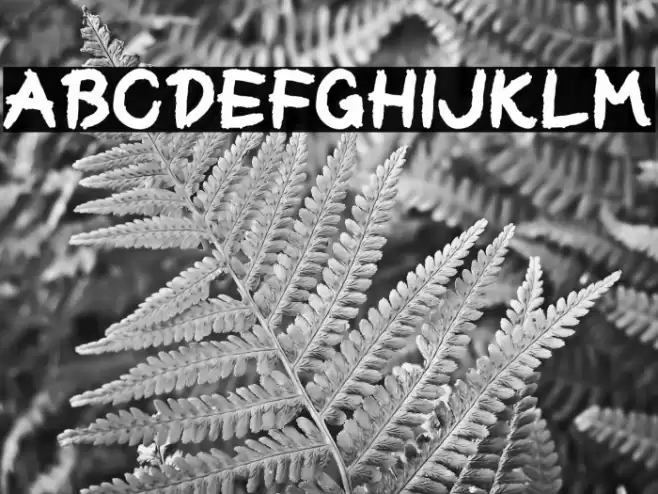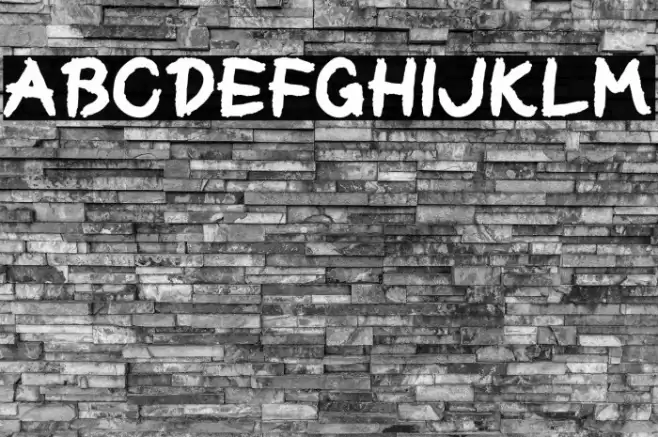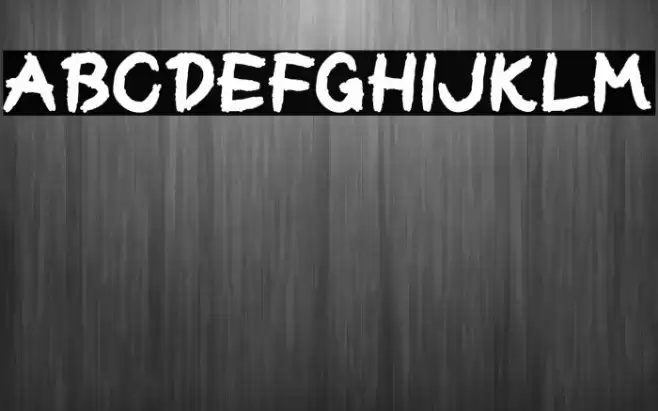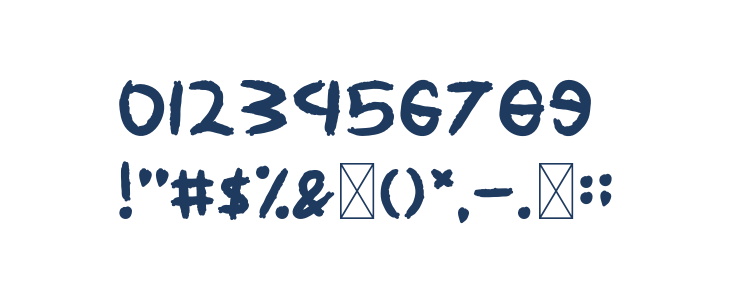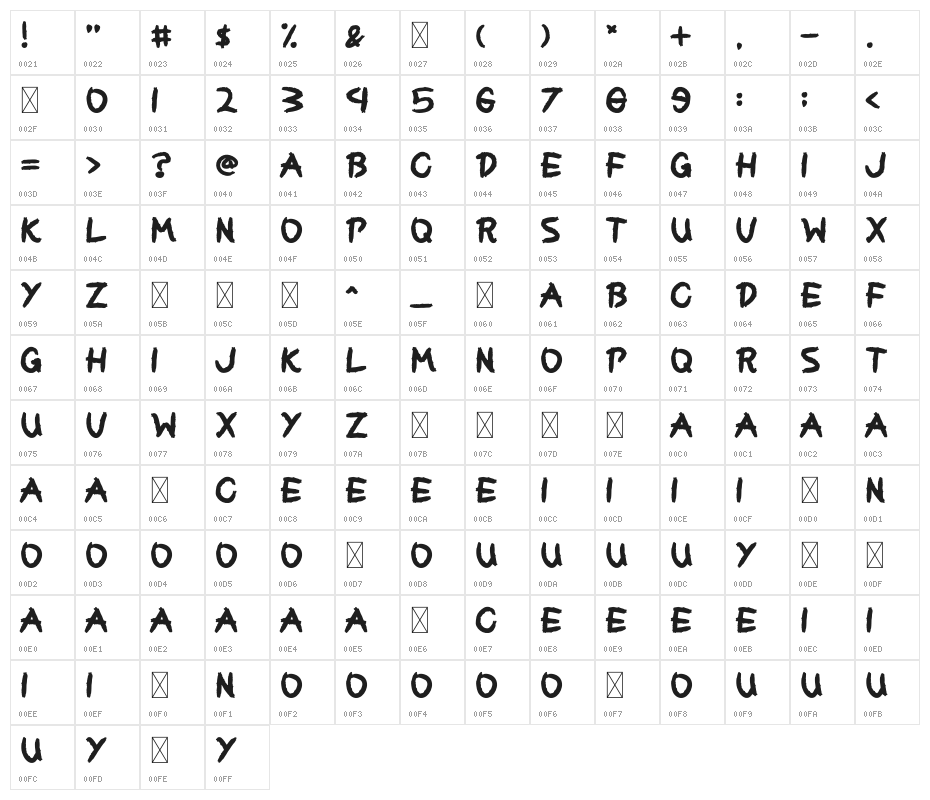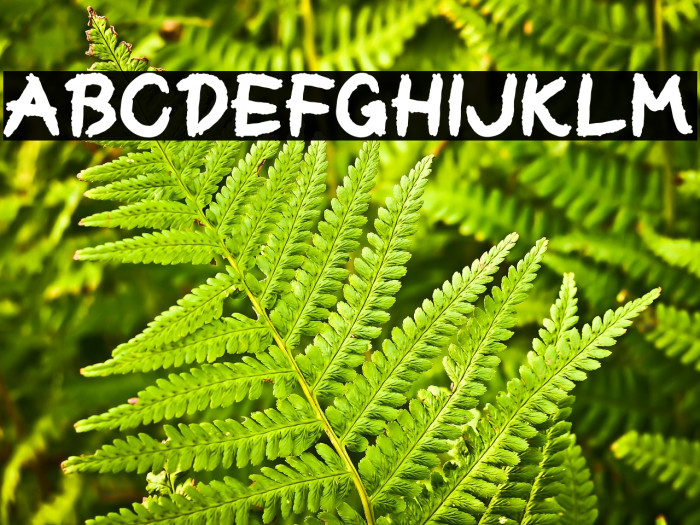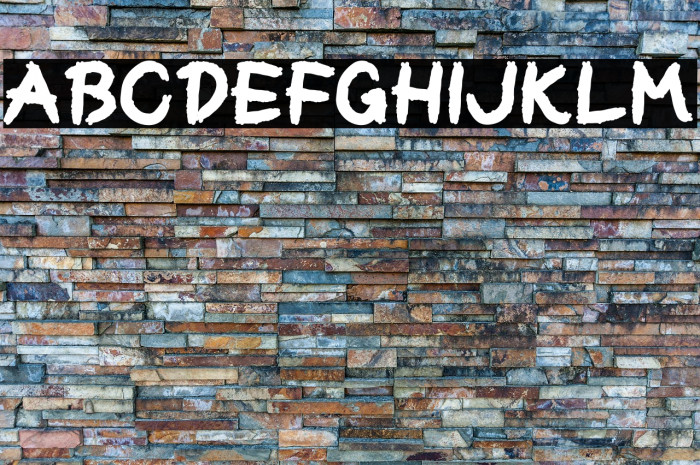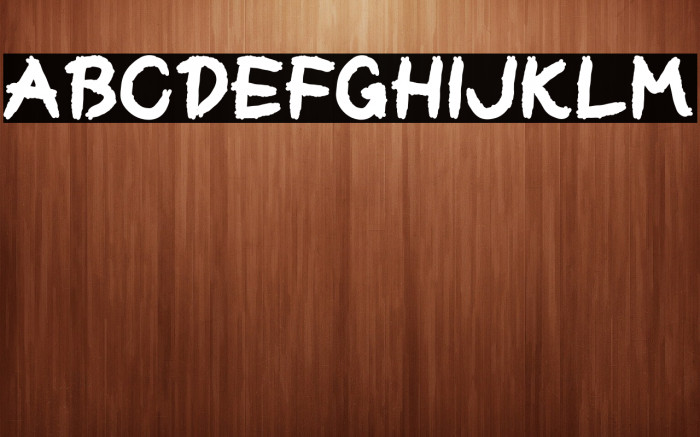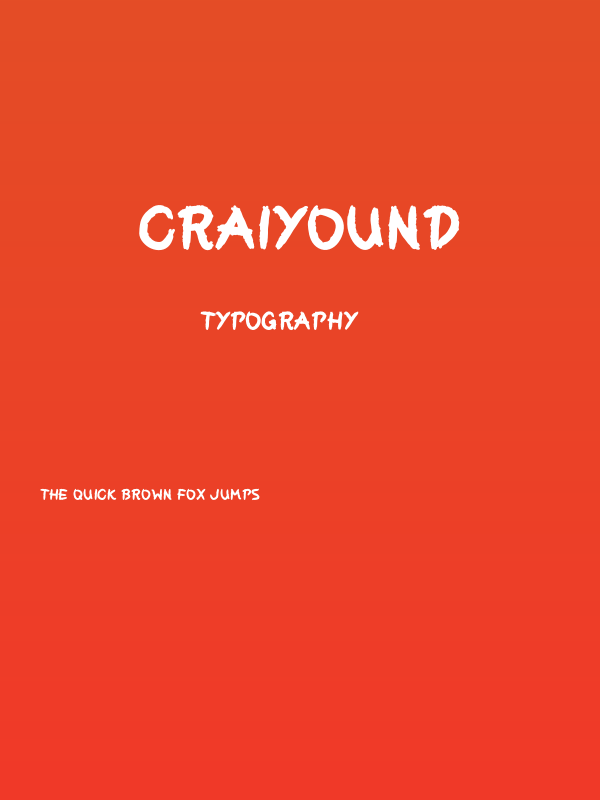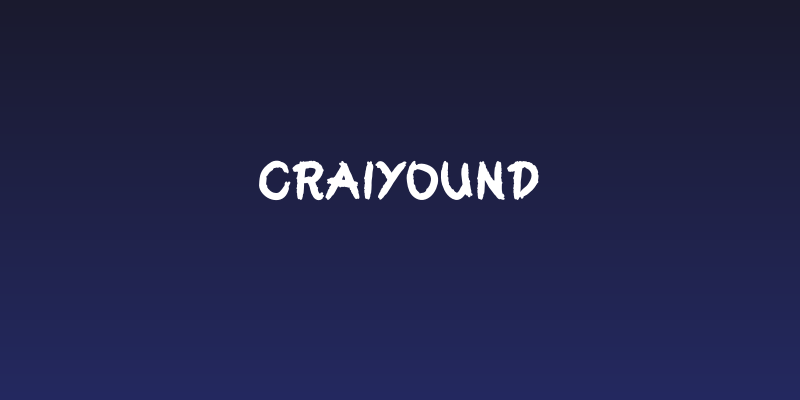
Craiyound Font
Craiyound Description
This font features a bold and expressive handwritten style, characterized by its brush-like strokes and dynamic flow. The letters have a casual, yet impactful appearance, with varying thickness that adds a sense of movement and energy. The uppercase and lowercase letters maintain a consistent style, while the numbers and special characters complement the overall aesthetic. The font's organic feel makes it suitable for projects that require a personal touch or a creative flair.
A bold, expressive handwritten font with brush-like strokes from Uncategorized fonts.
- Font: Craiyound
- Proposed Projects: Ideal for creative projects such as posters, invitations, branding, and social media graphics where a personal and dynamic touch is desired.
Craiyound UPPERCASE
Craiyound LOWERCASE
Craiyound OTHER CHARS